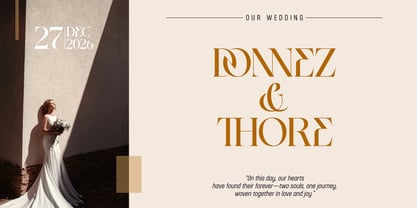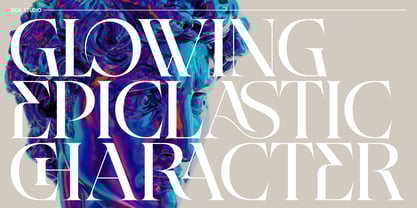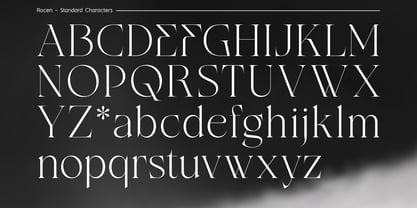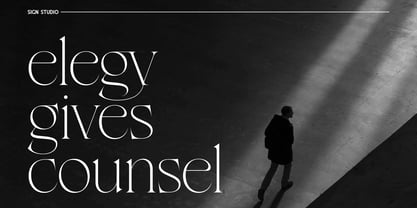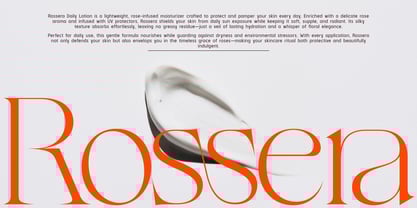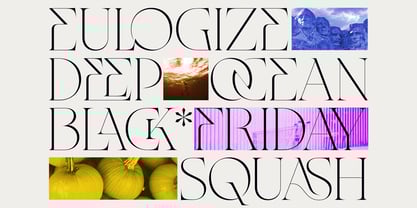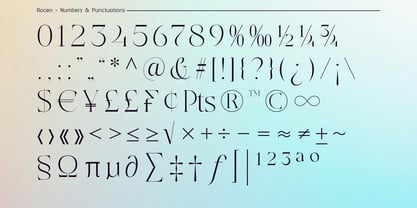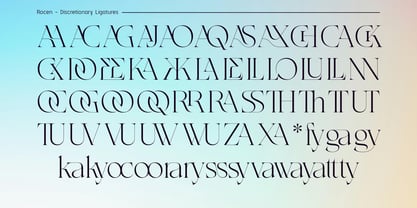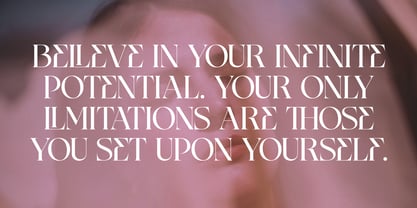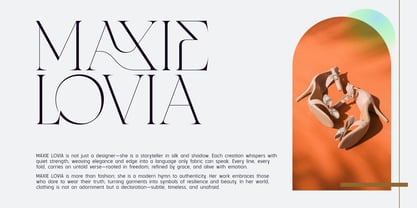
Rocen VF
Rocen VF expands the timeless elegance of Rocen into a fully flexible variable format. Designed for modern creators, it seamlessly bridges classic refinement with cutting-edge technology, allowing smooth interpolation across its entire weight range. From the delicate finesse of Light to the commanding presence of Bold, Rocen VF offers infinite possibilities within a single file.
Defined by its balanced contrast, distinctive ligatures, and refined contemporary details, Rocen Variable adapts effortlessly to diverse contexts—editorials, branding, luxury packaging, or immersive digital experiences. Designers gain complete creative freedom to fine-tune weight transitions with precision, ensuring optimal readability and visual harmony at any scale.
Like its static counterpart, Rocen VF comes fully equipped with advanced OpenType features, including:
• Standard Ligatures
• 57 Discretionary Ligatures (Uppercase & Lowercase)
• Stylistic Alternates, including Ampersand Variations
With broad Latin language support, Rocen Variable is more than a typeface—it’s a design tool built for versatility, clarity, and sophistication. Whether applied subtly or boldly, it delivers beauty in motion and elegance that endures.